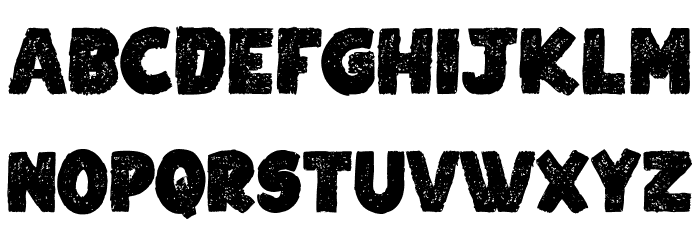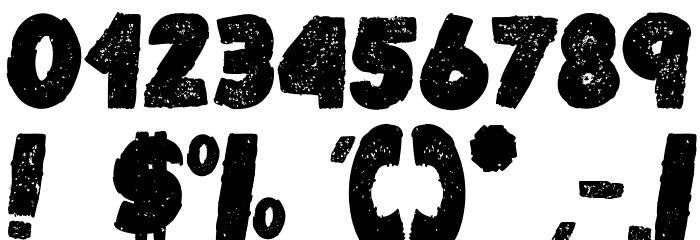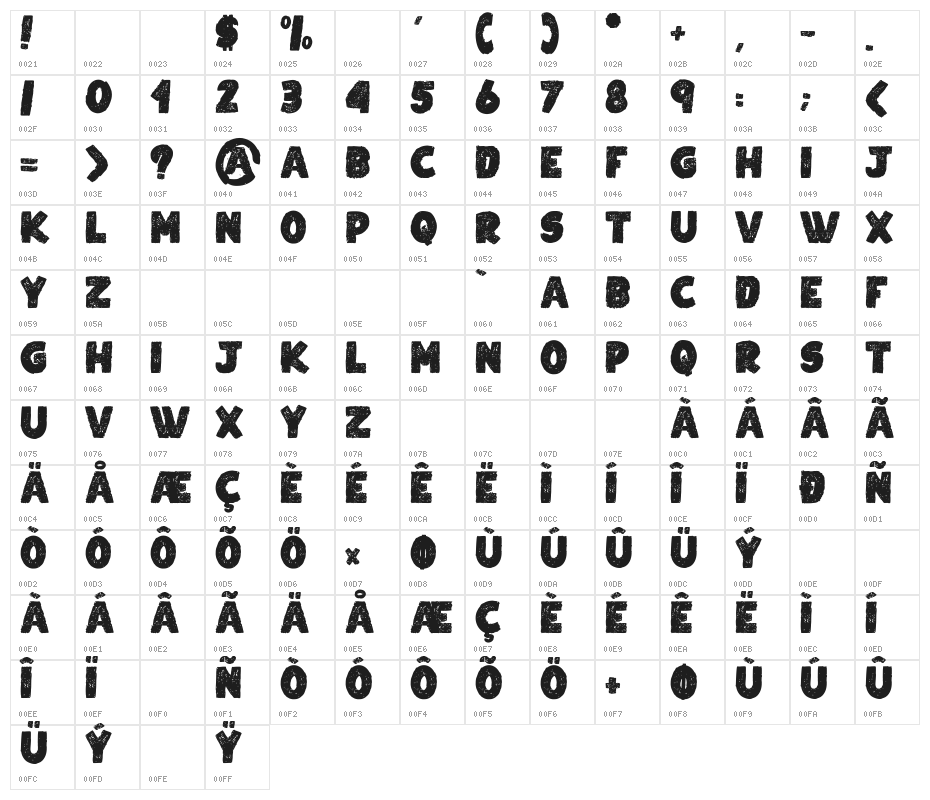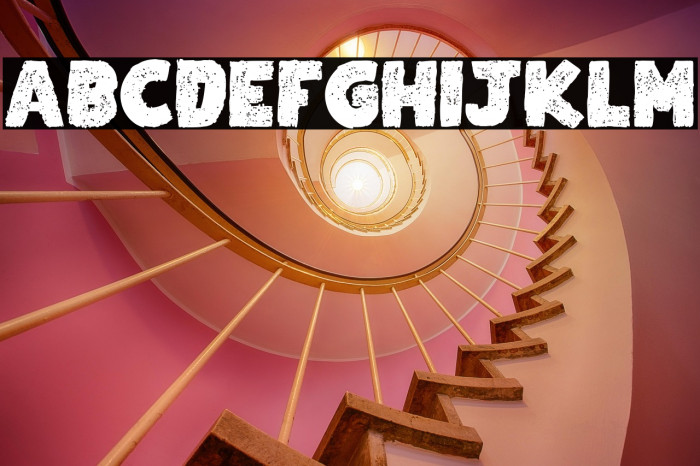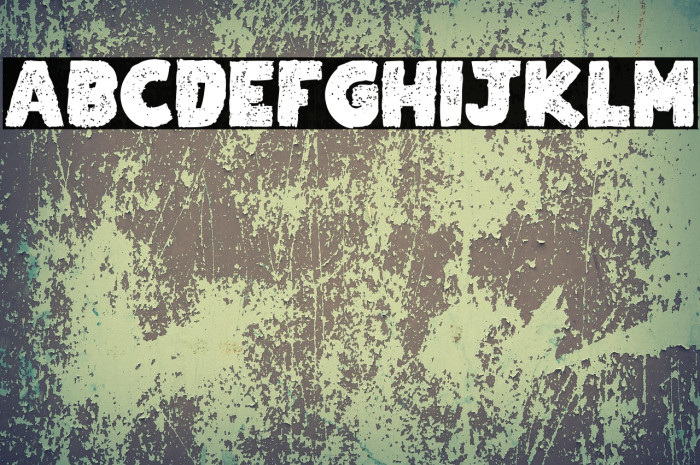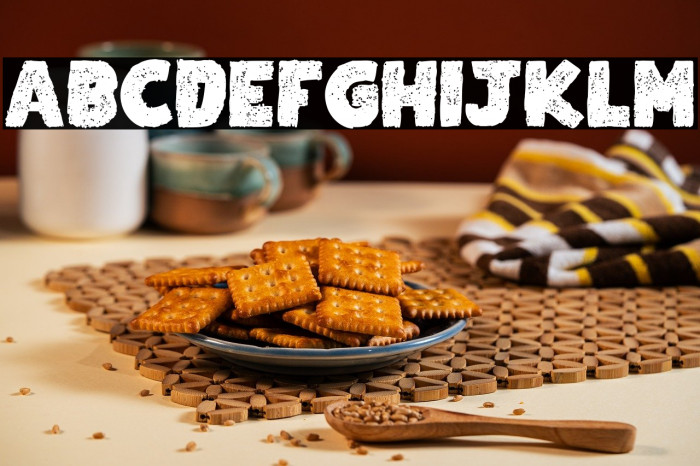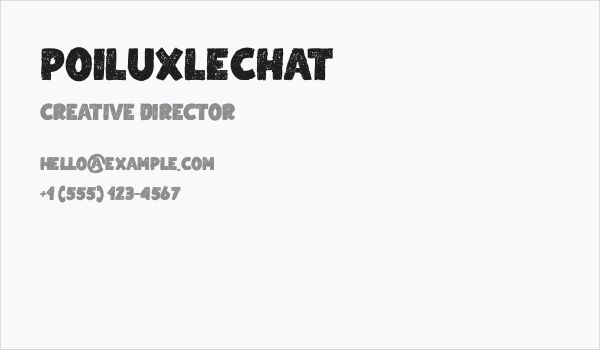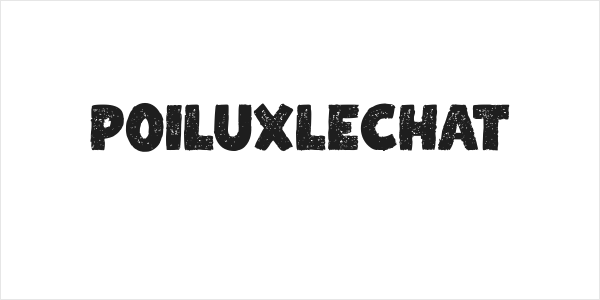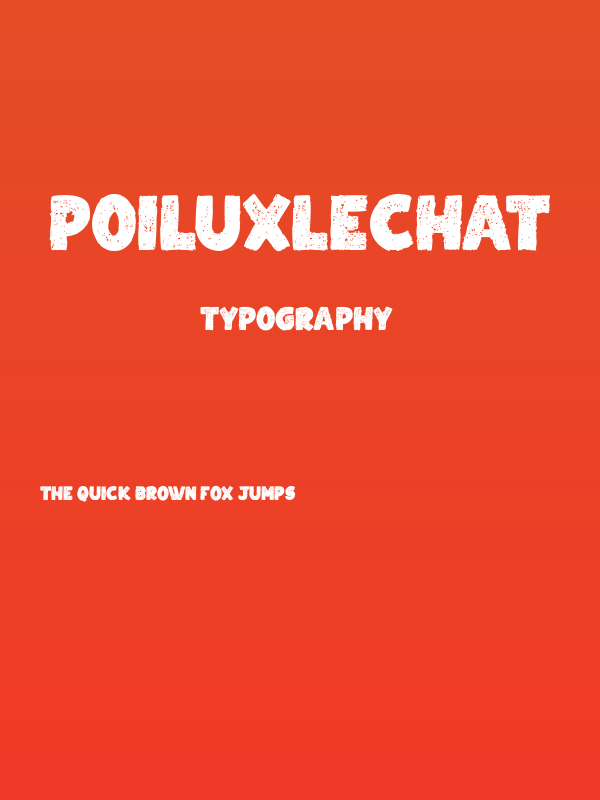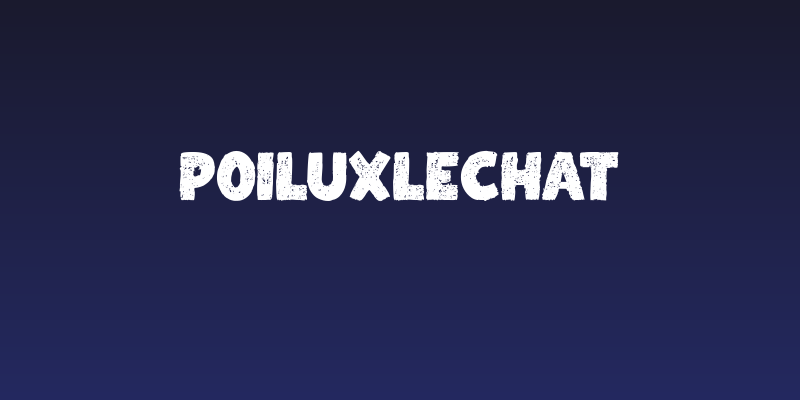
PoiluxleChat Font
This font features a bold and distressed style, characterized by its rough, textured appearance. The letters are thick and heavy, with a hand-crafted feel that suggests a vintage or retro aesthetic. The uppercase and lowercase characters maintain a consistent weight, contributing to a cohesive look. The numbers and special characters follow the same design, ensuring uniformity across all glyphs. This font's unique texture gives it a rugged, worn look, making it ideal for projects that require a touch of nostalgia or a gritty, urban vibe.
A bold, distressed font with a vintage, textured appearance.
- Font: PoiluxleChat
- Proposed Projects: Ideal for poster designs, album covers, branding for rustic or vintage-themed products, and any project needing a bold, textured statement.
- Overall Style: Vintage